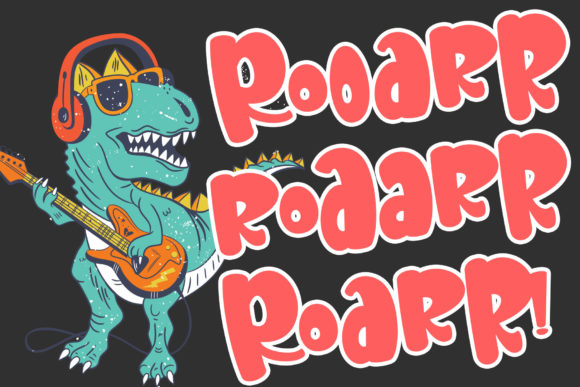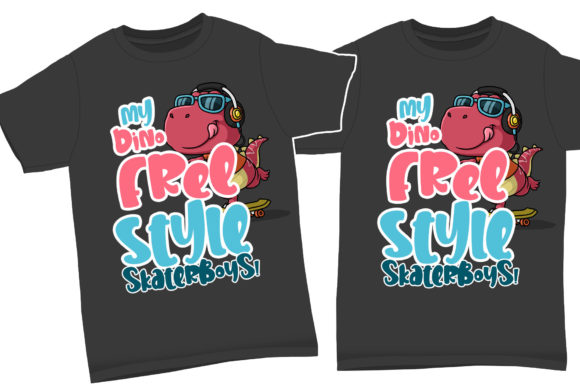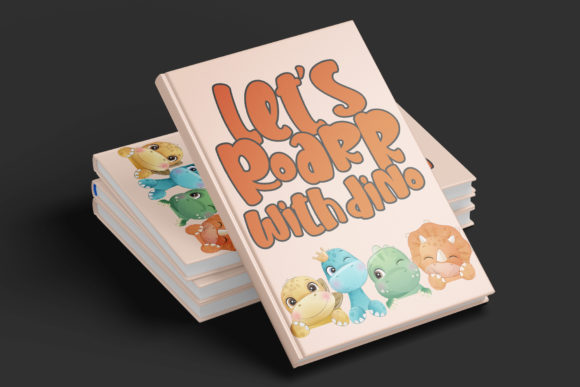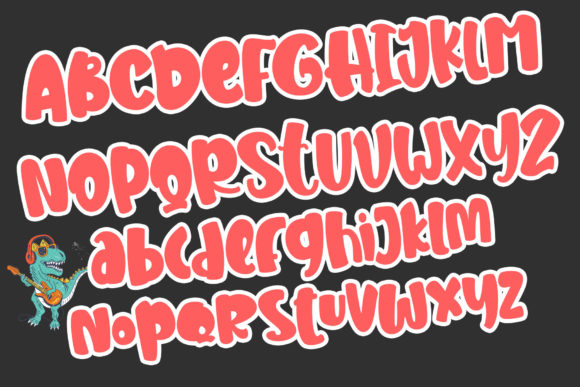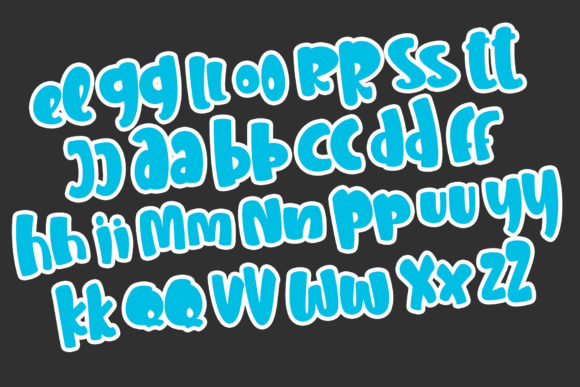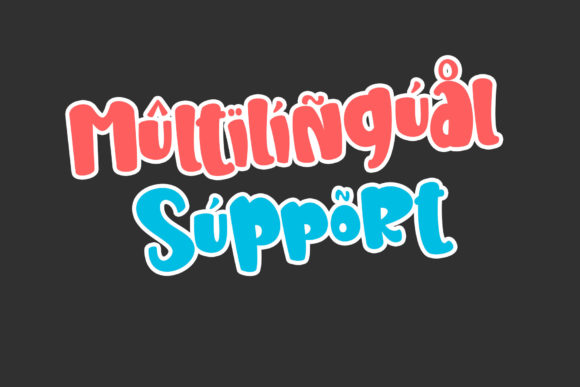
Dino Play Font: The Ultimate Choice for Fun and Playful Designs
Are you looking for a font that can add a touch of fun and playfulness to your designs? Look no further than the Dino Play font! This cool, chunky lettered, and friendly display font is perfect for children’s themed designs, especially when combined with bright colors. In this article, we’ll take a closer look at the Dino Play font, its features, and how you can use it to create engaging and adorable designs.
What is Dino Play Font?
Dino Play font is a display font designed to bring a sense of fun and excitement to your designs. Its chunky letters and friendly vibe make it an excellent choice for children’s books, posters, flyers, and other materials aimed at kids. The font is carefully crafted to be easily readable, even at large sizes, making it perfect for headlines, titles, and short paragraphs.
Key Features of Dino Play Font
- Chunky and Bold Letters: The font features thick, chunky letters that are perfect for creating eye-catching headlines and titles.
- Fun and Friendly Vibe: The font has a playful and friendly feel to it, making it ideal for children’s themed designs.
- Easily Readable: Despite its chunky design, the font is easy to read, even at large sizes.
- Perfect for Bright Colors: The font looks amazing when paired with bright, vibrant colors, making it perfect for designs that require a pop of color.
Use Cases for Dino Play Font
Dino Play font is versatile and can be used in a variety of design projects, including:
- Children’s Books: The font is perfect for book covers, title pages, and illustrations.
- Posters and Flyers: Use the font to create eye-catching posters and flyers for kids’ events, parties, and activities.
- Digital Graphics: The font is great for creating social media graphics, blog posts, and website headers.
- Crafting and DIY Projects: Use the font to add a personal touch to your crafting and DIY projects, such as signs, labels, and cards.
Tips for Using Dino Play Font
Here are some tips to help you get the most out of the Dino Play font:
- Pair with Bright Colors: As mentioned earlier, the font looks amazing when paired with bright, vibrant colors.
- Use for Headlines and Titles: The font is perfect for headlines and titles, so use it to create eye-catching text.
- Experiment with Different Sizes: The font is easily readable at different sizes, so experiment with different sizes to find the one that works best for your design.
- Add Texture and Patterns: Add texture and patterns to your design to give it a more playful and fun feel.
Dino Play font is a fun, playful, and friendly display font that’s perfect for children’s themed designs. Its chunky letters and easily readable design make it an excellent choice for headlines, titles, and short paragraphs. With its versatility and range of use cases, the Dino Play font is a great addition to any designer’s toolkit. So, if you’re looking for a font that can add a touch of fun and playfulness to your designs, look no further than the Dino Play font!